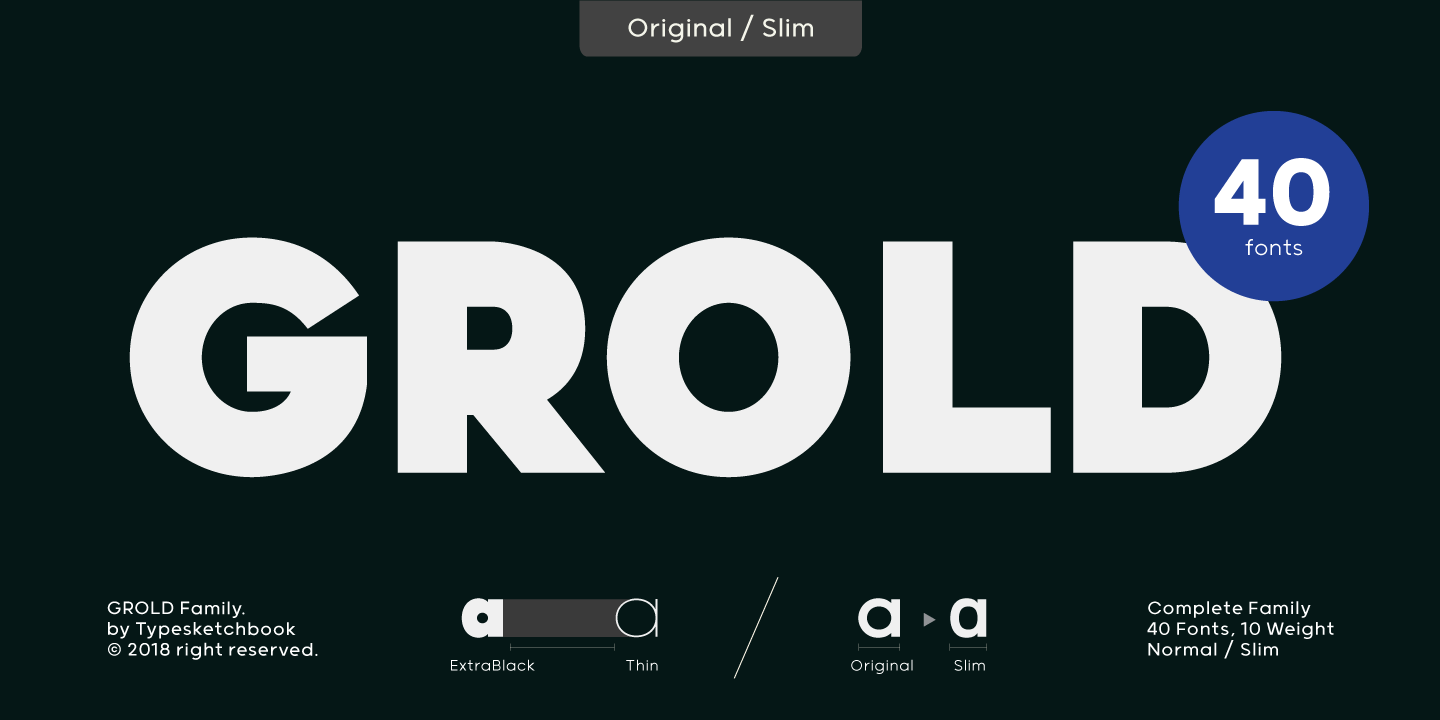
Grold Font is perfect for luxury jewelry branding, precious metals packaging, high-end investment logos, premium treasure hunt graphics, golden anniversary celebrations, opulent casino signage, wealthy lifestyle magazines, and prestigious designs that require gleaming golden elegance and luxurious sophistication.
This font is exciting because it radiates the lustrous appeal of pure gold through its rich, gleaming letterforms that embody the timeless allure and precious value of the world's most coveted metal. The opulent character design captures the essence of luxury and prosperity, making it perfect for brands seeking to convey premium quality, enduring value, and exclusive sophistication.
Grold Font belongs to the luxury display font family, featuring golden styling and precious elements that enhance its effectiveness for high-end and luxury-focused design applications.
Whether you're creating luxury brand identities or precious metals graphics, Grold Font Free Download delivers maximum opulence and golden sophistication. This typeface perfectly captures the essence of golden luxury while maintaining excellent functionality for premium applications. The font's gleaming presence works magnificently in luxury communications, precious metals branding, and upscale marketing materials, providing optimal readability while maintaining its golden character that transforms any design with precious metal elegance and creates unforgettable luxury experiences across all media platforms and premium brand communications.